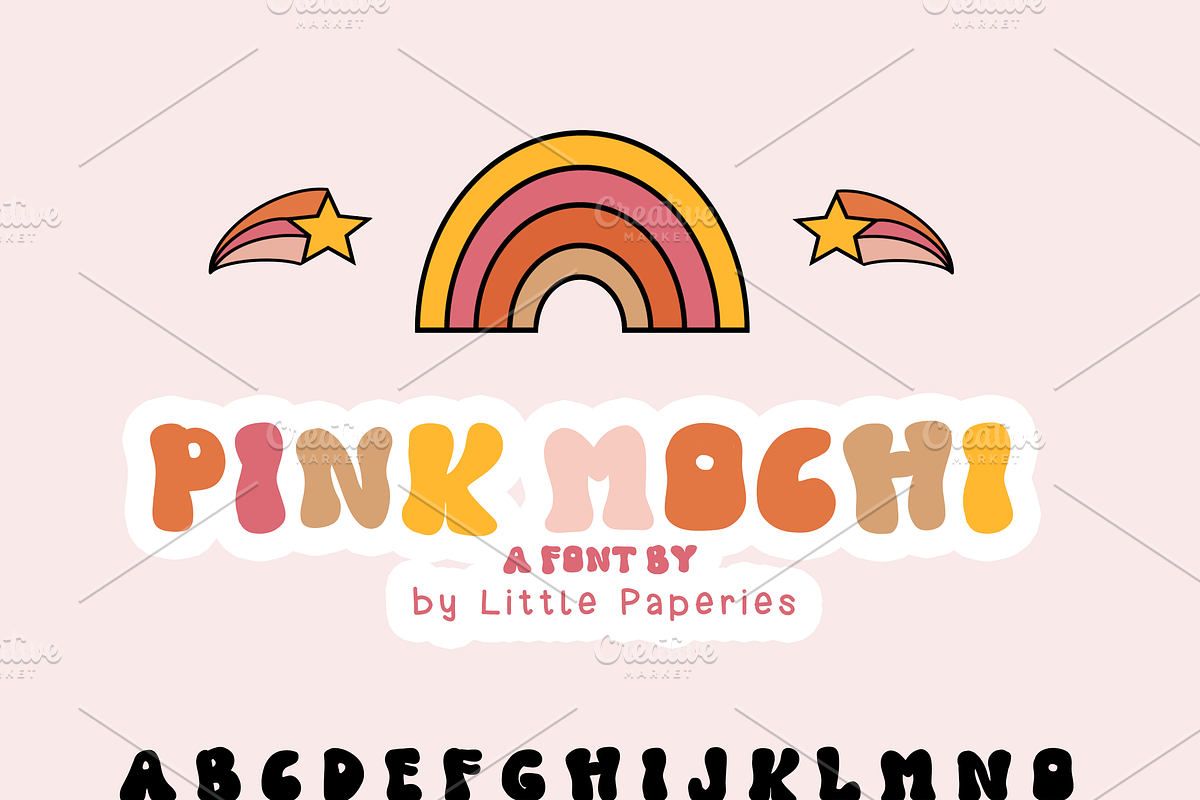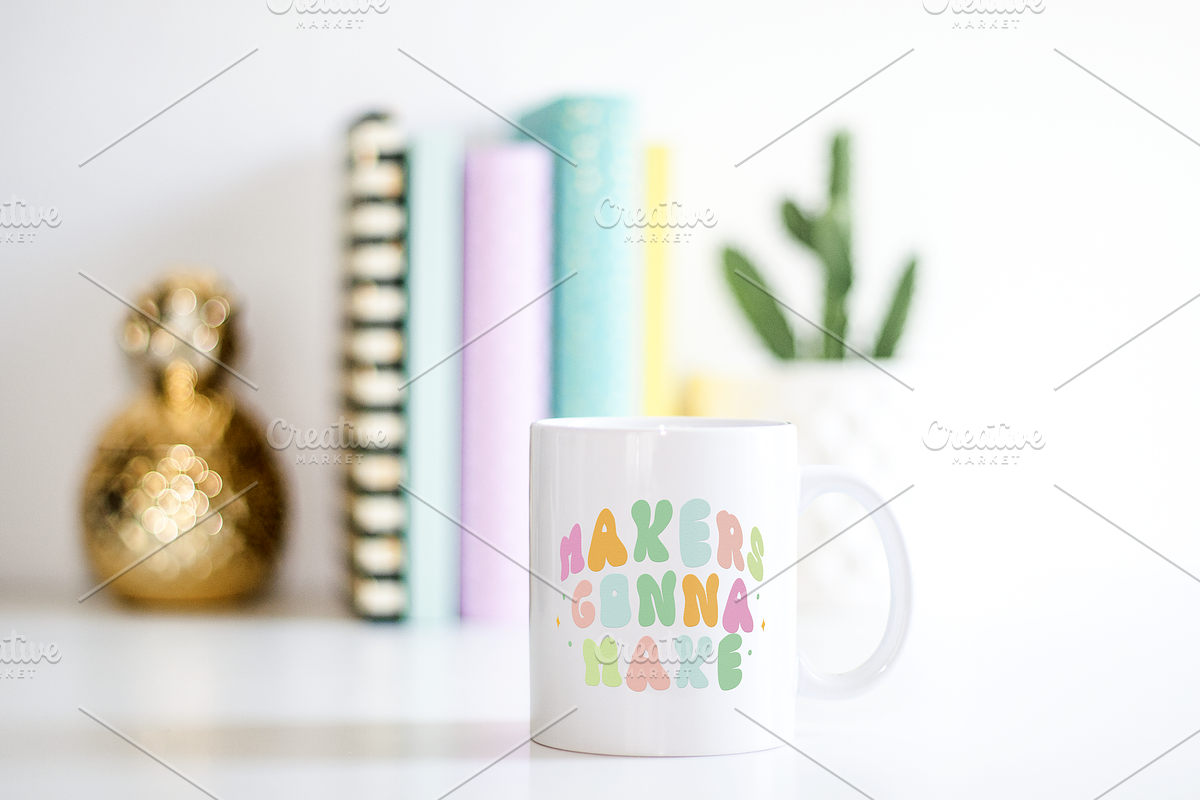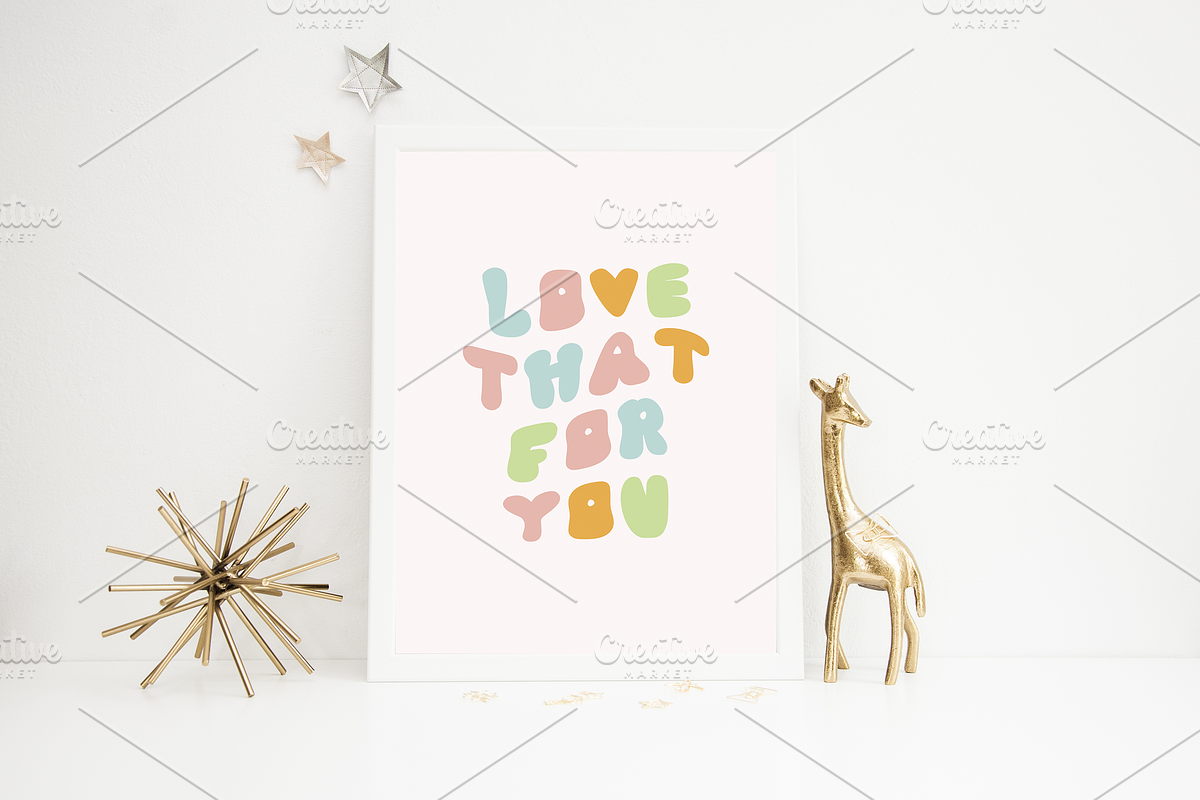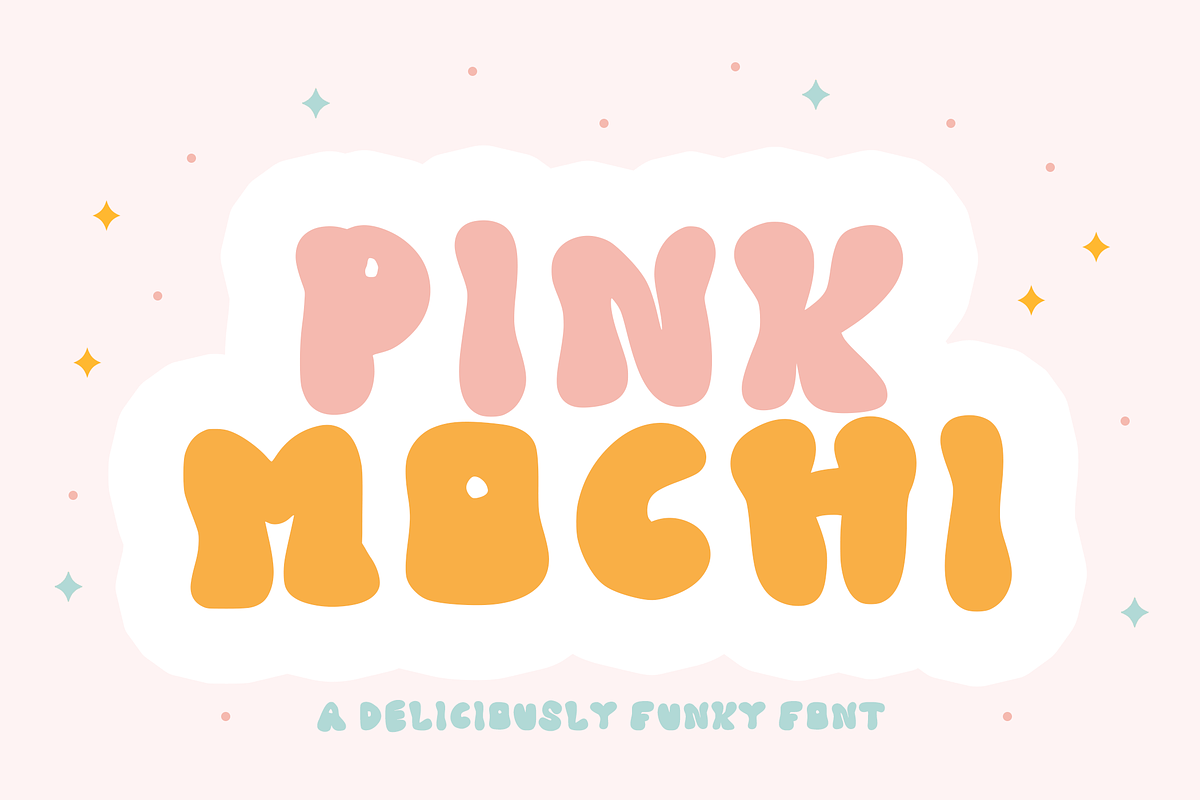
Pink Mochi Font
We introduce to you the "Pink Mochi" font! A totally groovy, handwritten font made just for you and all of your future fave products.